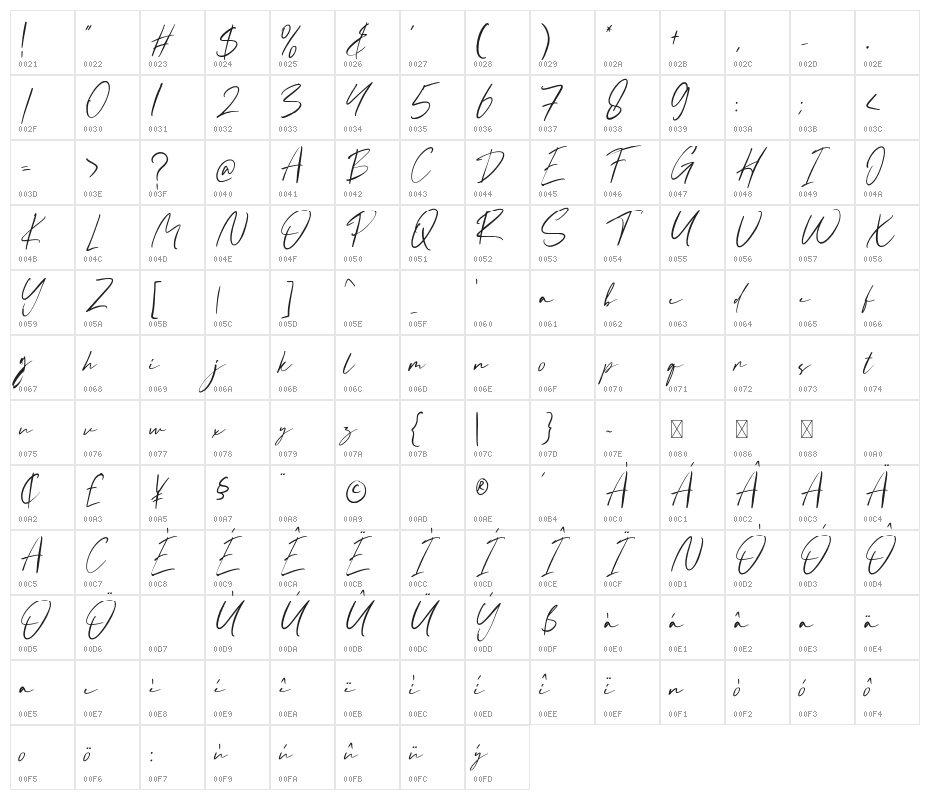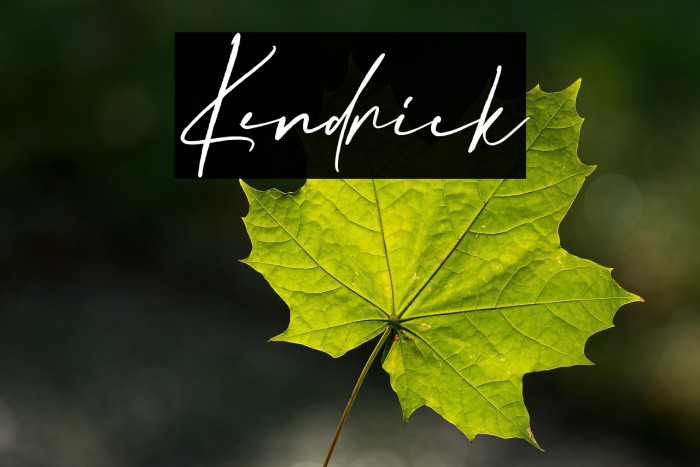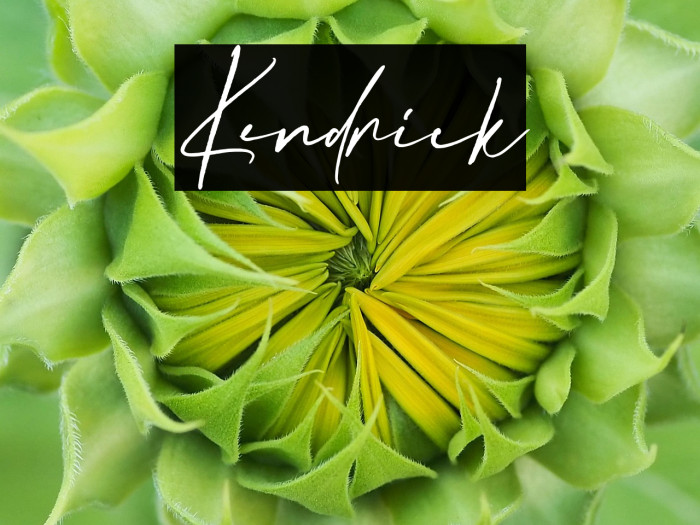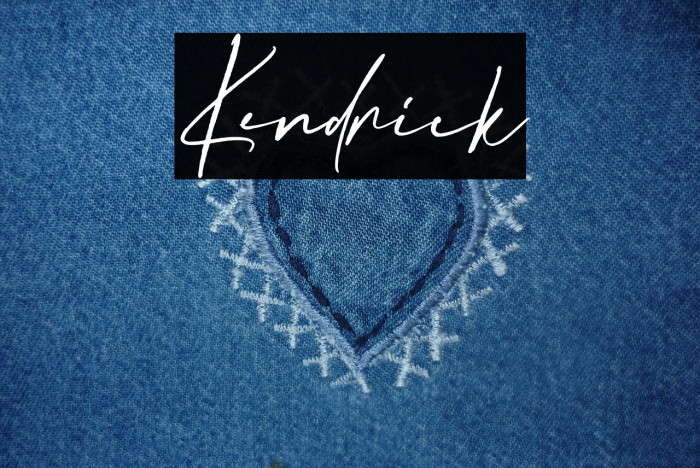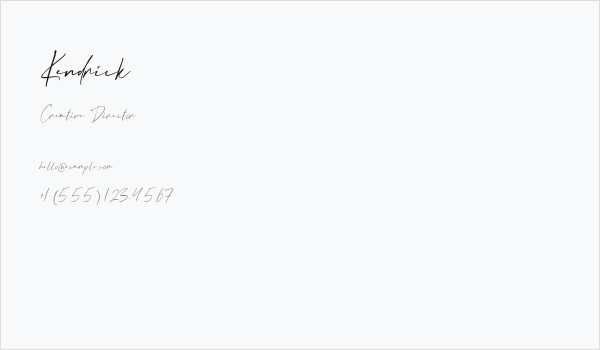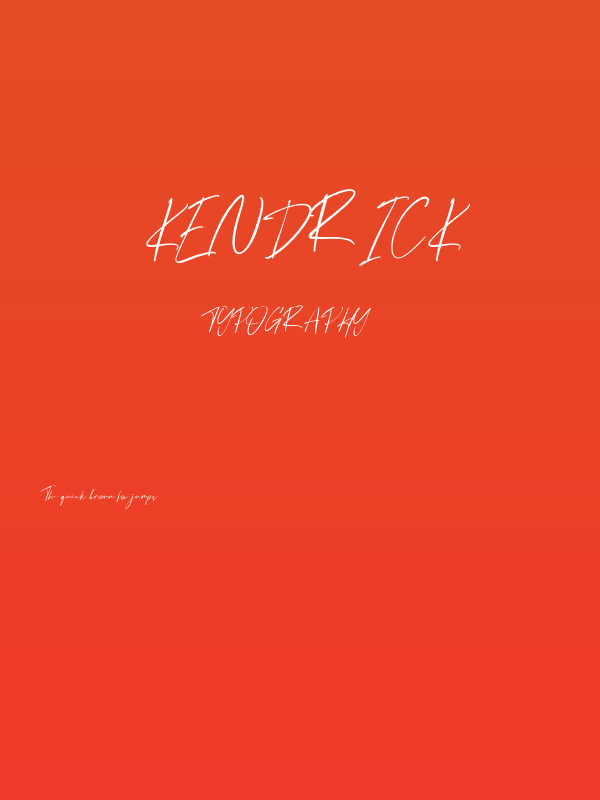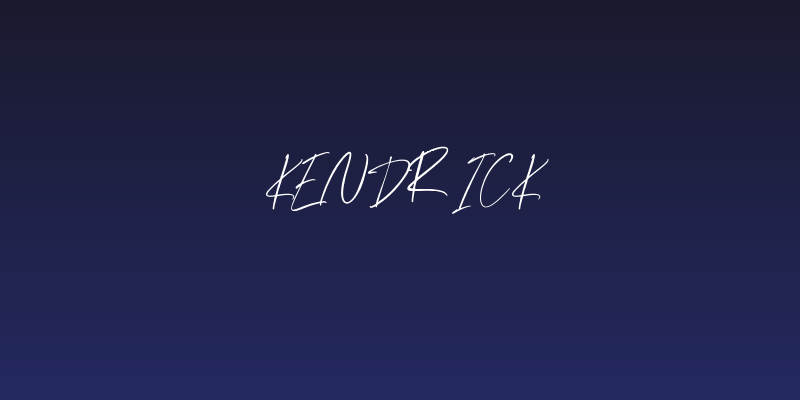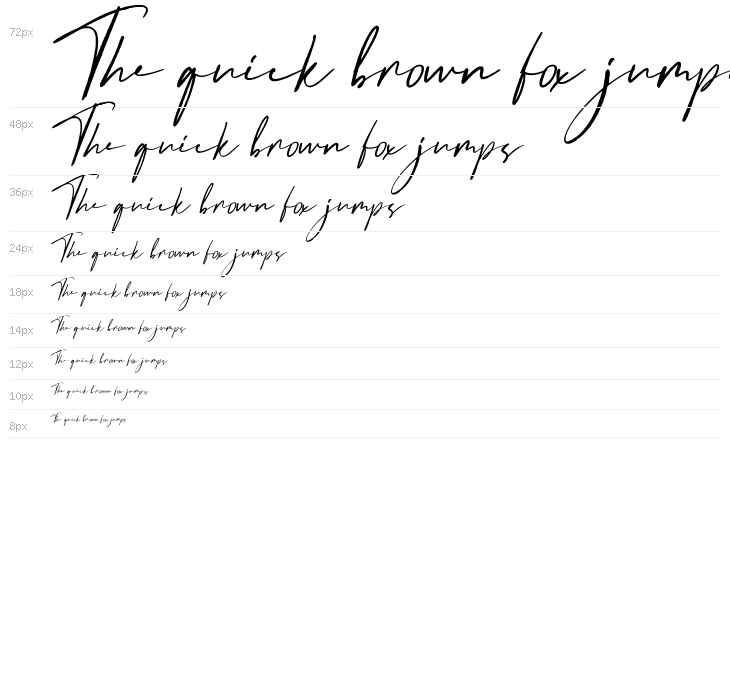
Kendrick Font
Kendrick Description
This font exudes a dynamic and expressive handwritten style, characterized by its fluid and cursive letterforms. Each character is crafted with a sense of movement, featuring elongated strokes and a slight slant that adds to its energetic appearance. The uppercase letters are bold and prominent, while the lowercase letters maintain a consistent flow, enhancing readability. The numerals and special characters are designed with the same attention to detail, ensuring a cohesive look across all glyphs. This font is perfect for projects that require a personal touch or a creative flair.
Use CaseLogos, Headlines, Invitations
Proposed ProjectsIdeal for wedding invitations, greeting cards, branding, and social media graphics.